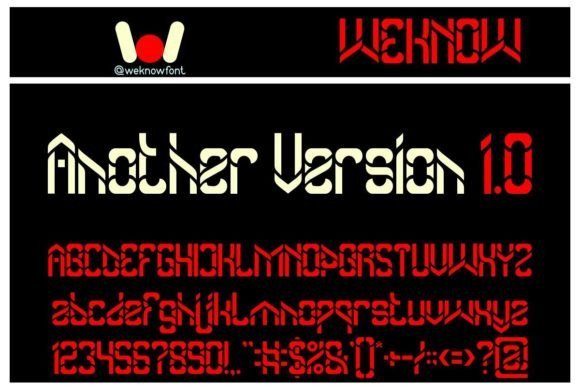
When Typography Meets Genius: Unlocking the Power of Another Version Font
Have you ever been stuck on a design project, staring at a blank page, waiting for that spark of creativity to strike? It’s a feeling we’ve all been there, and it’s precisely in those moments that the right font can make all the difference. Enter Another Version Font, the ultimate game-changer for designers seeking to elevate their creations. This extraordinary font seamlessly blends the edginess of techno and sci-fi with the sophistication of stencil sports, resulting in a truly unique visual experience.
As a designer, you understand the importance of choosing the right font to convey your message and capture your audience’s attention. Another Version Font is an ideal choice for branding ventures, corporate identities, and even the fashion industry, as it adds a touch of style and flair to any design. With its unmatched aura of precision, this font is sure to leave a lasting impression on your viewers.
Key Features of Another Version Font
- Font Family: Another Version Font is a sans-serif font family designed for digital use. It comes in multiple weights, including light, regular, bold, and italic.
- Unique Characteristics: Another Version Font features a unique blend of modern and vintage design elements, with clean lines, geometric shapes, and subtle texture, making it ideal for use in creative and innovative projects.
Another Version Font Review
First off, I want to say that I’m loving the modern and sleek aesthetic of Another Version Font. The font is highly customizable and offers a wide range of options for adjusting the style and feel. ✨ This is a huge plus for designers who like to experiment and try out different looks. The font also has a clean and minimalistic design, making it perfect for digital products and modern branding.
One of the standout features of Another Version Font is its versatility. It can be used for a variety of purposes, from body text to headings, and even for creating custom logos. ✨ This flexibility makes it a great choice for designers who work on a wide range of projects.
While Another Version Font has many great features, there are a few limitations to be aware of. ⚠️ The font may not be suitable for all types of projects, particularly those that require a more traditional or classic look. Additionally, the font may not be fully optimized for print use, which could lead to issues with resolution and legibility.
Overall, I’m really impressed with Another Version Font. While it may not be perfect for every project, it’s a great choice for designers who want a modern and customizable font. With its wide range of options and versatility, it’s definitely worth checking out.
- ✨ Highly customizable and versatile
- ✨ Clean and minimalistic design
- ⚠️ May not be suitable for all types of projects
- ⚠️ May not be fully optimized for print use
Tips for Getting the Most Out of Another Version Font
Experiment with different font sizes and styles to achieve the desired effect.
Combine Another Version Font with other fonts to create a unique and eye-catching design.
Use Another Version Font for headings and titles to add a touch of elegance and sophistication.
Another Version Font is ideal for:
Designing wedding invitations and stationery.
Creating business cards and marketing materials.
Adding a touch of elegance to presentations and reports.